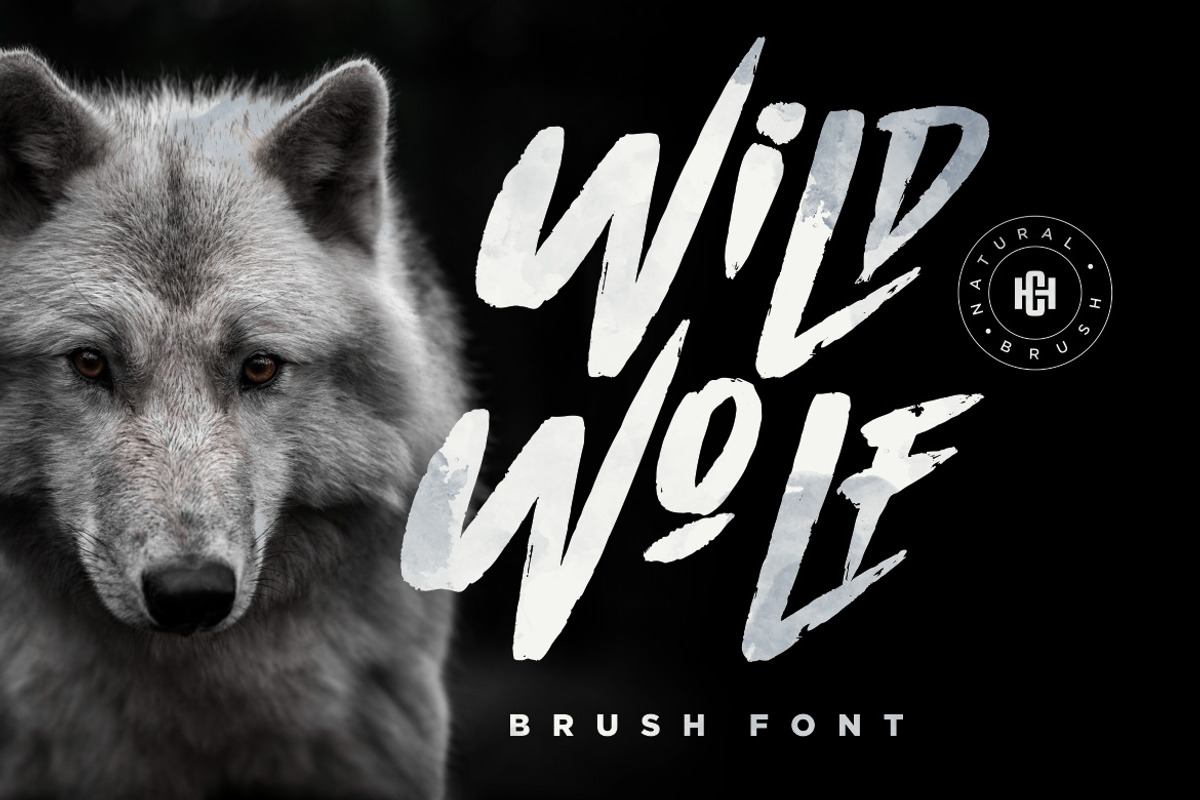
Unleash raw, untamed energy in your designs with the Wild Wolf - Brush Font Free Download — a fierce and expressive brush typeface that roars with personality. Designed with bold strokes and gritty texture, Wild Wolf is perfect for posters, apparel design, music branding, action-packed campaigns, and extreme sports visuals.
Its hand-drawn brush style brings a wild, rebellious vibe to your typography, making it ideal for projects that demand attention and attitude. Whether you're creating a rock album cover or a streetwear logo, Wild Wolf will give your message a bold, unforgettable voice.